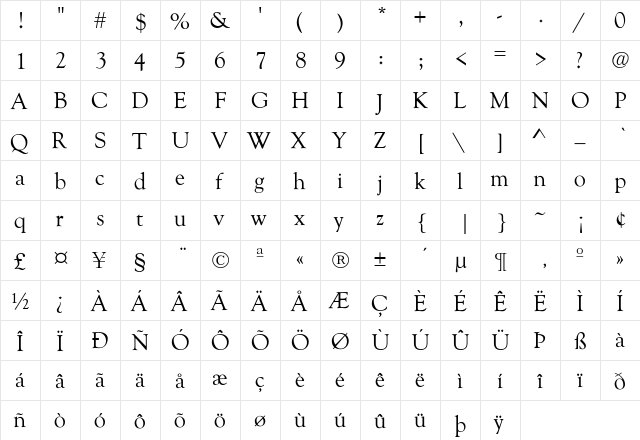
Old-Style-Normal Regular Font Preview
Old-Style-Normal Regular
Design Context for Old-Style-Normal Typeface
Old-Style-Normal offers clean, dependable letterforms without strong stylistic allegiance, making it a practical choice for designers who need flexibility.